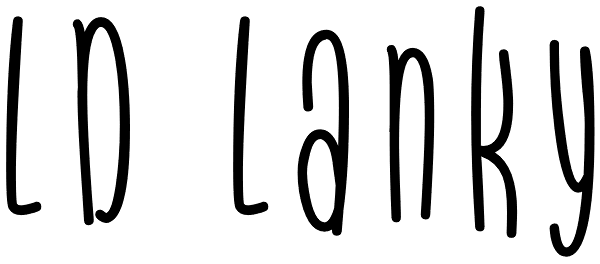
LD Lanky
Long, tall and fun, that's what this cool font is. Download "Lanky" for scrapbook and greeting card journaling, captions, titles, and sentiments.
LD Lanky Font